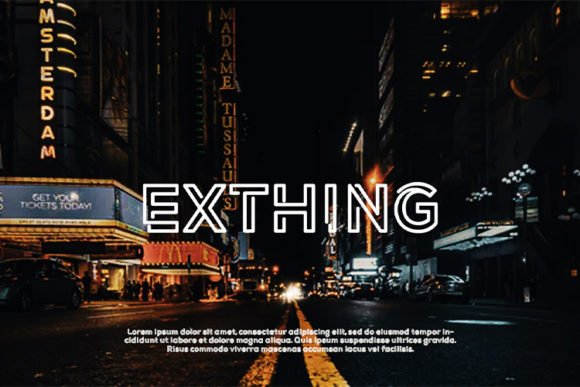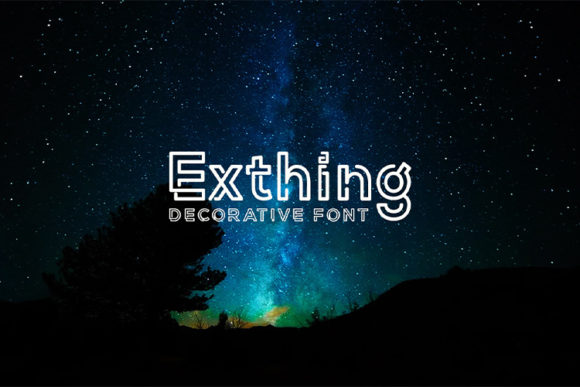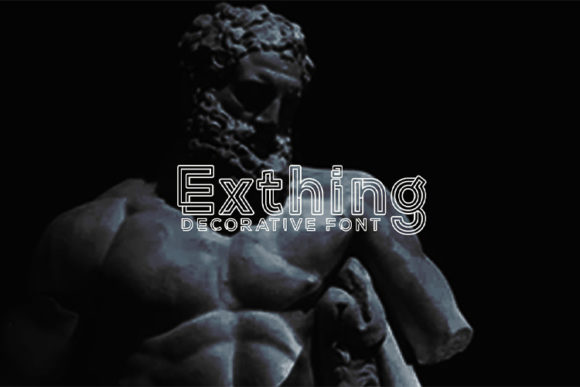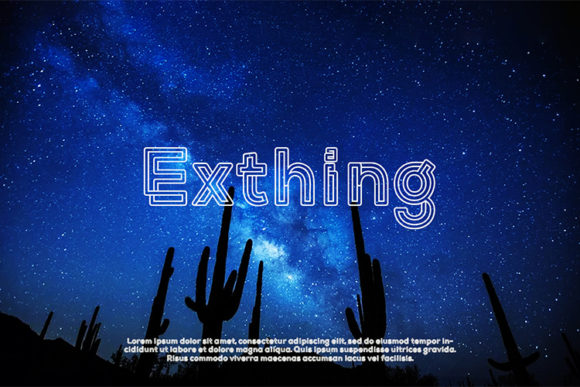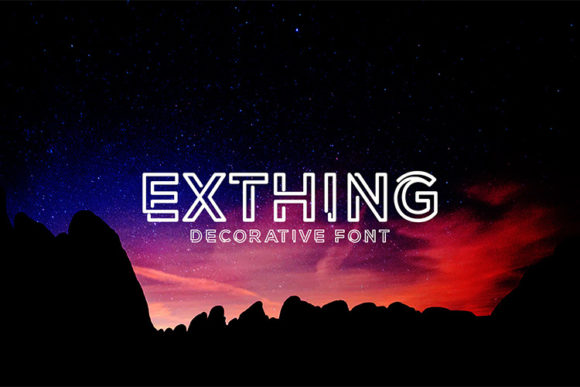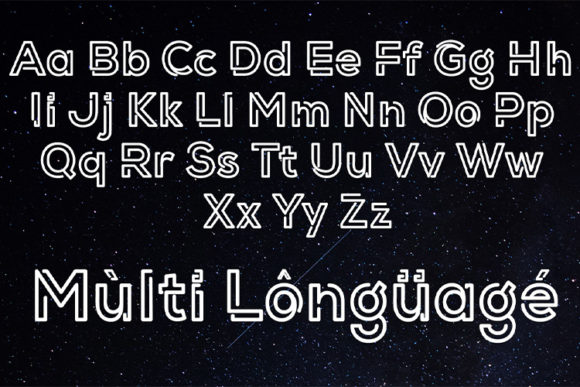
Unleashing Your Creative Potential with Exthing Font
Have you ever stared at a blank page, waiting for inspiration to strike? The cursor blinks, and you’re left wondering where to start. It’s in these moments that the right font can make all the difference. For designers, finding the perfect font can be the key to unlocking a project’s full potential.
Introducing Exthing Font, a modern display font designed to elevate your work. This carefully crafted font is perfect for adding a touch of sophistication to any design, whether it’s a busy background or a standalone headline. With Exthing Font, you’ll be able to create visually stunning designs that grab attention and leave a lasting impression.
What sets Exthing Font apart is its versatility and ability to adapt to any design context. As a designer, you’ll appreciate the value of having a reliable font that can help you achieve your creative vision. With Exthing Font, you’ll be able to push the boundaries of your design and take your projects to the next level.
Exthing Font Key Features
- Font Family: Exthing Font is a sans-serif font family designed for modern digital applications. It includes 12 styles ranging from Thin to Black.
- Character Set: Supports a wide range of languages, including Latin, Cyrillic, and Greek alphabets, as well as various symbols and punctuation marks.
- Size: Exting Font is optimized for digital use, with font sizes ranging from 8 to 72 points, making it suitable for various applications, including web design, print media, and mobile devices.
- Resolution: Designed for high-resolution displays, Exting Font is suitable for use on screens with resolutions up to 4K (3840 x 2160 pixels) and beyond.
- Unique Characteristics: Exting Font features a distinctive, modern design with a focus on legibility and readability, making it an excellent choice for applications where clear typography is essential.
Designer Review: Exthing Font
I recently had the chance to work with the Exthing Font, and I must say, it’s a mixed bag. Here are my thoughts on what works well and what doesn’t.
- The Exthing Font has a unique and quirky feel to it. It’s perfect for designers looking to add some personality to their projects.
- The font is highly customizable, allowing you to adjust the weight, width, and even the letter spacing to fit your design needs.
- The font is available in a wide range of languages, making it a great option for international projects.
- The Exthing Font can be a bit overwhelming to read, especially at smaller font sizes. The unique shape of the letters can make it difficult to distinguish between similar letters.
- The font may not be suitable for body text, as it can be quite dense and may fatigue the reader.
- The font is not optimized for screen use, which may lead to rendering issues on certain devices.
While the Exthing Font has its limitations, I think it’s a great option for designers looking to add some personality to their projects. With its unique feel and high level of customization, it’s perfect for titles, headings, and other display text. However, it may not be the best choice for body text or screen-based projects.
Tips for Getting the Most Out of Exthing Font
Here are some tips to help you get the most out of Exthing Font:
- Use Exthing Font for headings and titles to add a touch of elegance to your designs.
- Combine Exthing Font with other fonts to create a unique and eye-catching typography.
Here are some common use cases for Exthing Font:
- Branding and logos Alternatives to Exthing Font
Open Sans is a modern sans-serif font that is highly legible and suitable for digital interfaces. It is often used in web design, mobile apps, and branding. Open Sans is a great alternative to Exthing Font for designers who want a clean and minimalist look.
Comparison to Exthing Font: While Exthing Font has a more unique and quirky feel, Open Sans is more neutral and versatile. Open Sans is also more widely supported and has better readability on various devices.